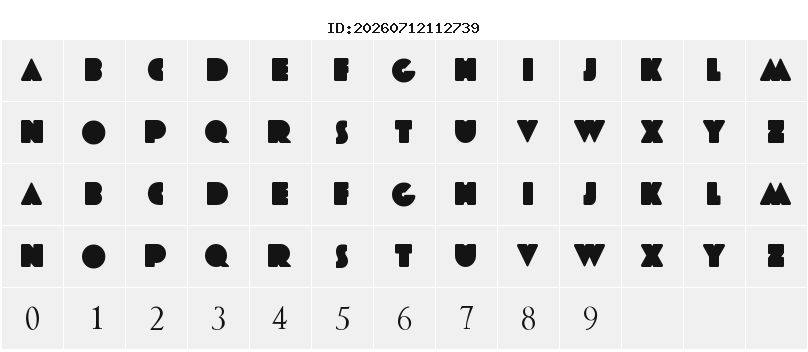
MajorMinus Preview
• Font Name: MajorMinus
• Designer: Wayne Birch, Coldplace
• Description: The font was created by Wayne Birch of the Coldplay tribute band, Coldplace
MajorMinus.ttf is a modern, elegant sans-serif font designed for ultimate readability and visual harmony. Perfect for branding, headlines, web design, and print materials.